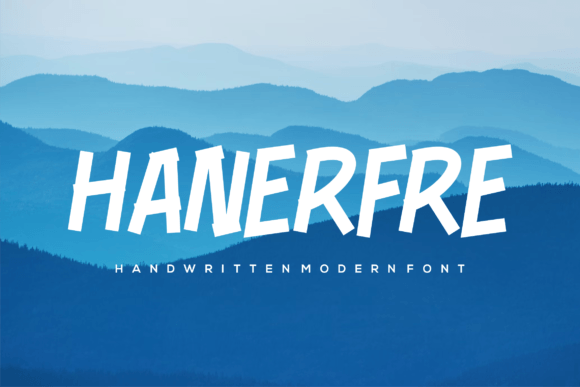
Get ready to revolutionize your designs with Hanerfre Font, the ultimate Sans Serif font family that breathes life into your creative visions. Unleash your imagination and step into a realm of modern elegance, where every letter dances with grace and sophistication.
With Hanerfre Font, your designs will exude a timeless charm, captivating your audience's hearts. Its meticulously crafted characters, each imbued with a touch of casualness and neatness, harmonize perfectly to create a visual symphony.
Dive into the world of Hanerfre Font and let your creativity soar. Whether you're designing logos, branding materials, social media posts, or any digital masterpiece, this font will elevate your work to new heights.
Don't settle for ordinary fonts that blend into the background. Embrace the captivating allure of Hanerfre Font and watch as your designs transform into works of art. Its distinct and timeless style will leave a lasting impression, ensuring your messages resonate with your audience.
Hanerfre Font is the perfect choice for designers seeking a font that embodies both modernity and a touch of nostalgia. Its versatility knows no bounds, effortlessly complementing a wide range of design projects. From sleek and minimalist logos to playful and whimsical branding, Hanerfre Font seamlessly adapts to your creative vision.
Step into the realm of design excellence with Hanerfre Font, a masterpiece created by kalingga.albert. Fall in love with its incredibly distinct and timeless style, and use it to unleash your creative genius. Experience the magic of Hanerfre Font and elevate your designs to new heights today!